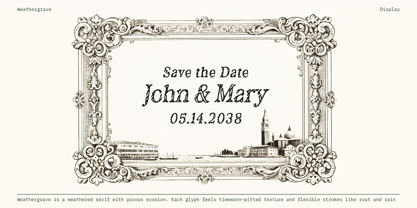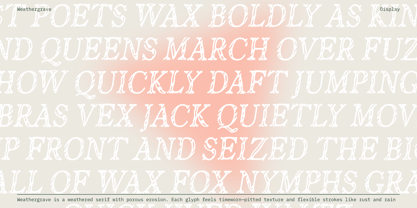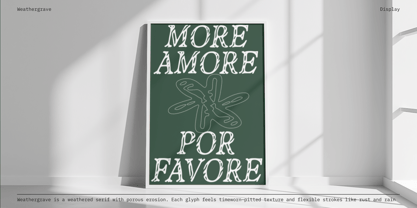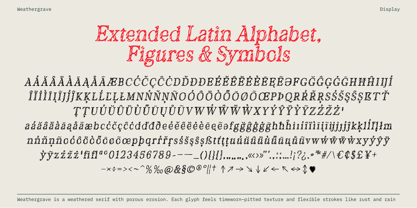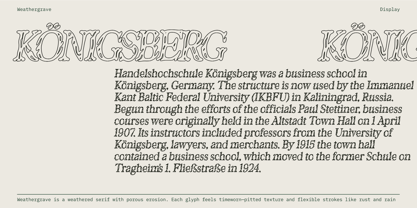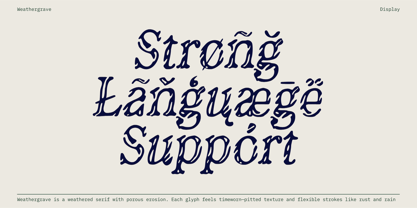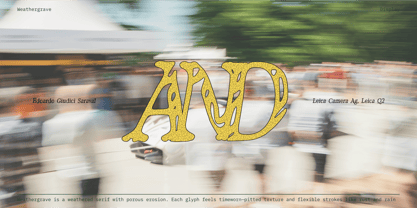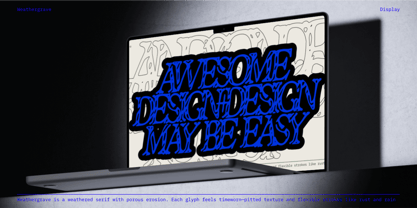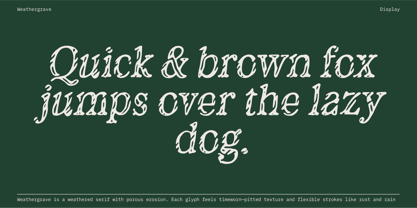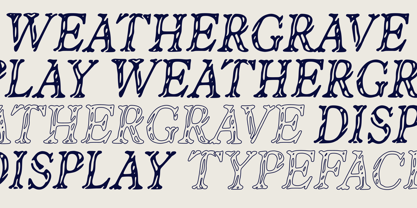
Weathergrave
Weathergrave is a distinctive display serif that carries a rich sense of history in every letter. Its bold serifs and weathered, porous texture evoke the passage of time—letters shaped by years of sun, rain, and wear. Subtly eroded forms recall vintage signage that has endured for decades, giving your typography a character that feels both authentic and unique.
Balancing nostalgic charm with a modern design sensibility, Weathergrave is perfect for projects where personality and tactility matter: book covers, posters, branding, packaging, or digital interfaces. Its texture draws the eye, while its proportions and shapes keep your layouts flexible and expressive.
Features
• Complete extended Latin alphabet, numbers, and symbols
• Organic, naturally eroded edges
• Ideal for large sizes and expressive headlines
• Flexible proportions and dynamic forms
With Weathergrave, every word becomes a visually engaging statement—adding depth, atmosphere, and a timeless narrative to your design.